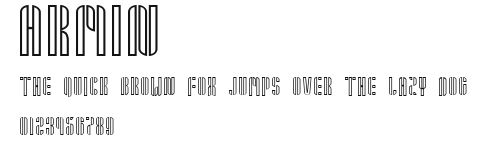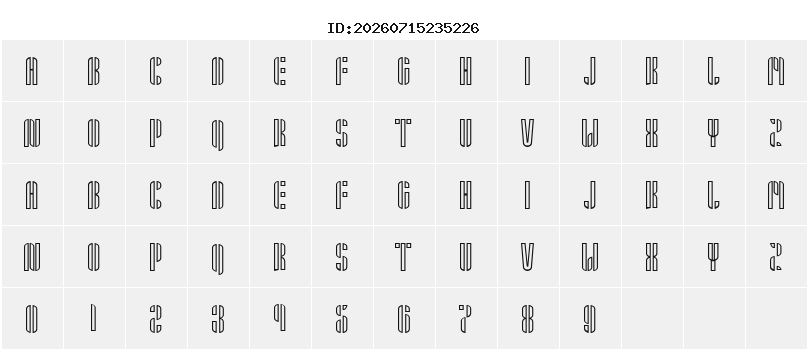
• Font Name: Armin
• Full Font Name: Armin
• Version: Version 1.1
• PostScript Name: Armin
• Character Count: 86
• Designer: namioty.info
• Manufacturer: CVE.PL
Armin.ttf is a modern, elegant sans-serif font designed for ultimate readability and visual harmony. Perfect for branding, headlines, web design, and print materials.